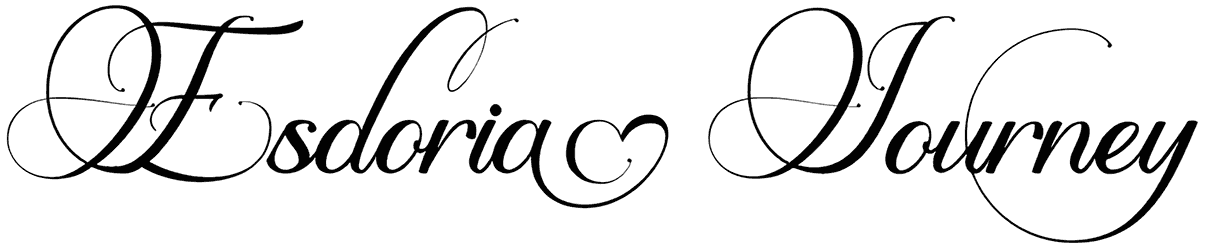
Esdoria Journey Font
Undoubtedly, using the appearance of calligraphy can make your project enchanting and dazzling, and Esdoria Journey leads your project to exactly this goal. This calligraphy font, with delicate curves and unique details, will give a vibe of palatial and chic to your design. As an A-Z font, Esdoria Journey is multipurpose and can perfectly show your designs like postcards, covers, fashion-related designs, and more.